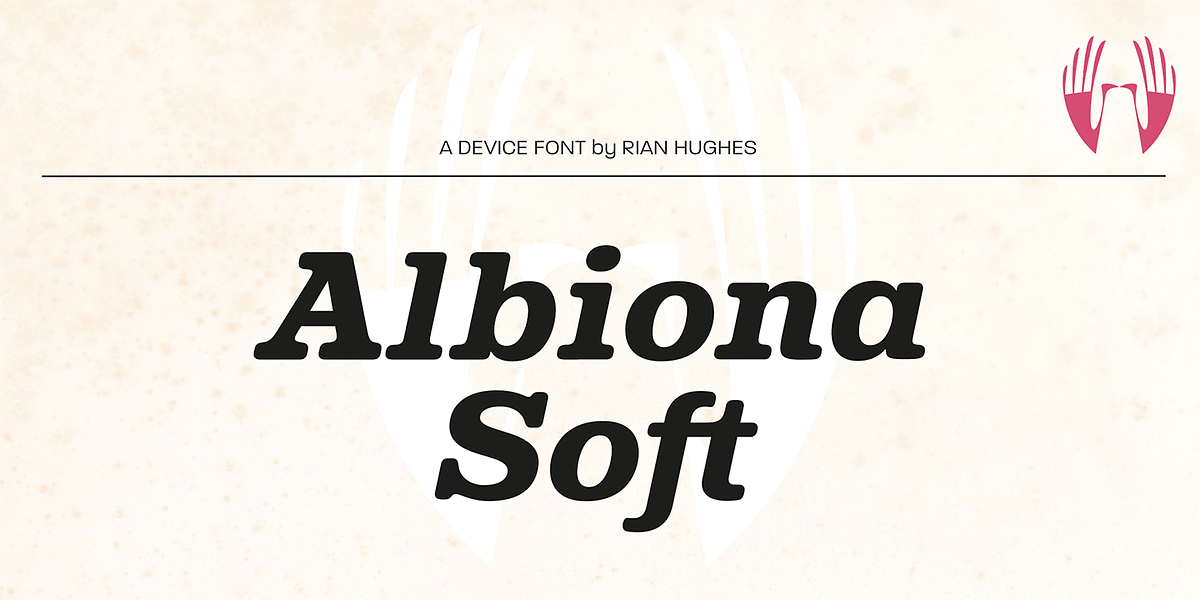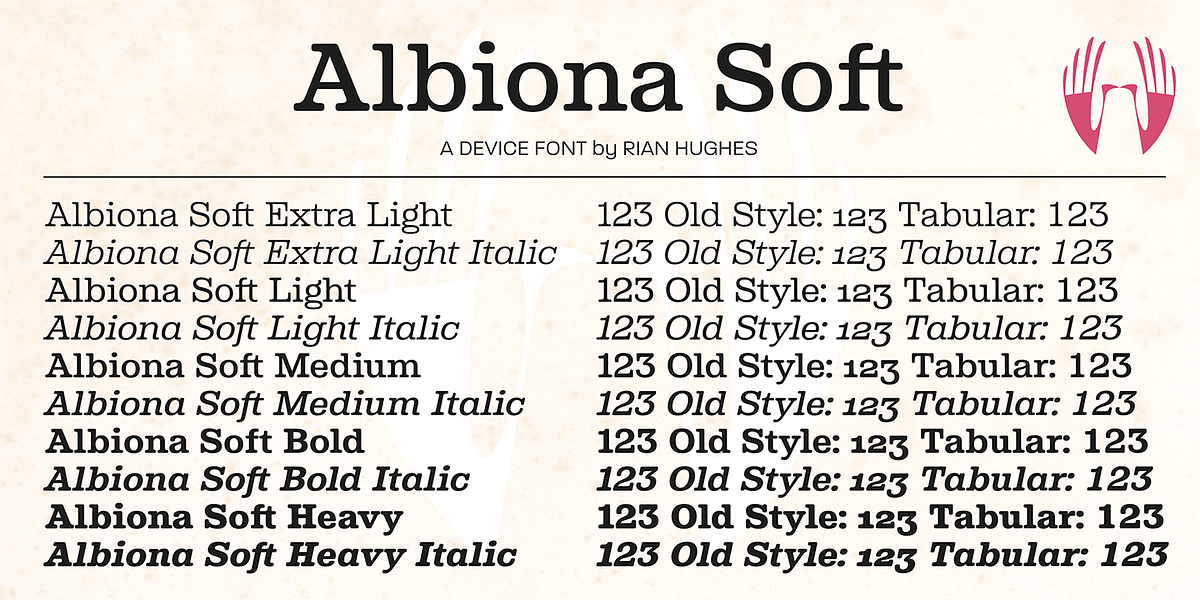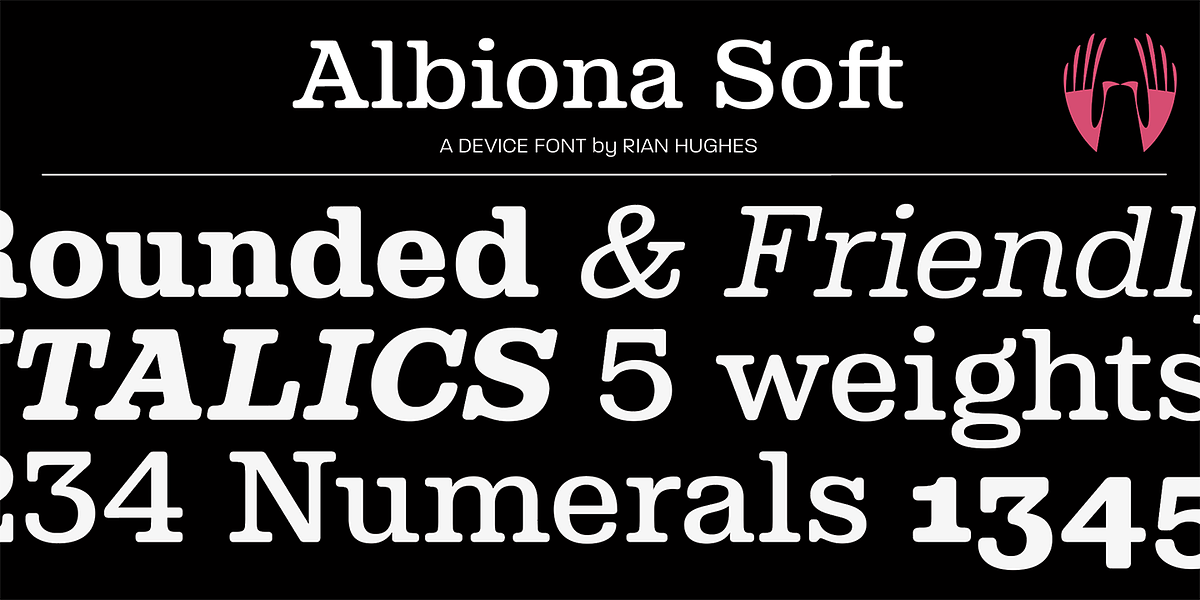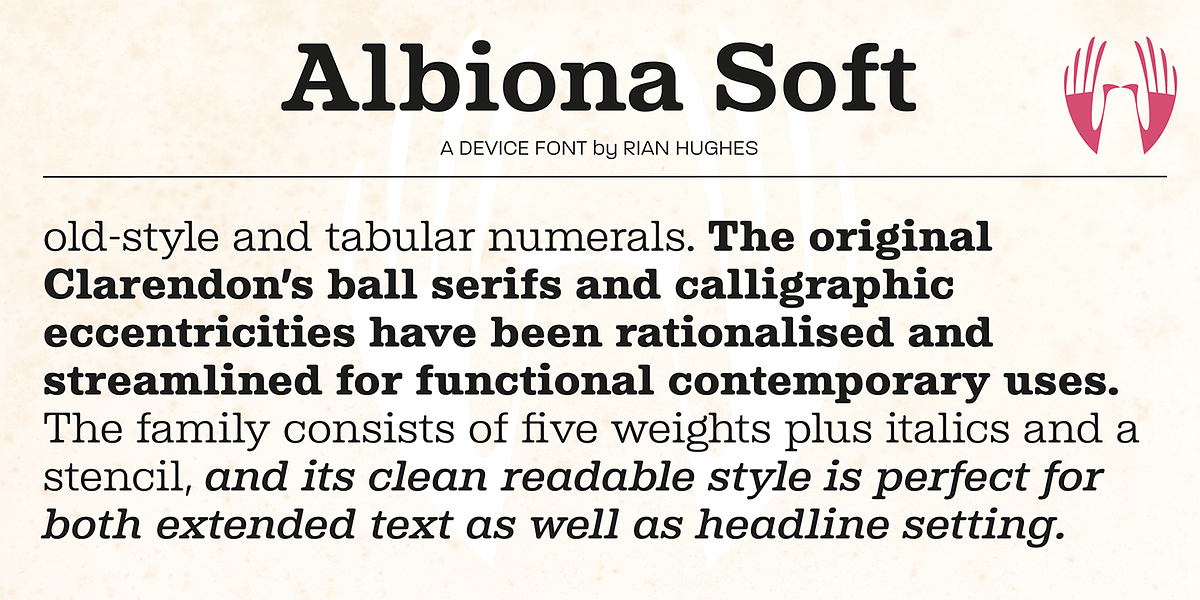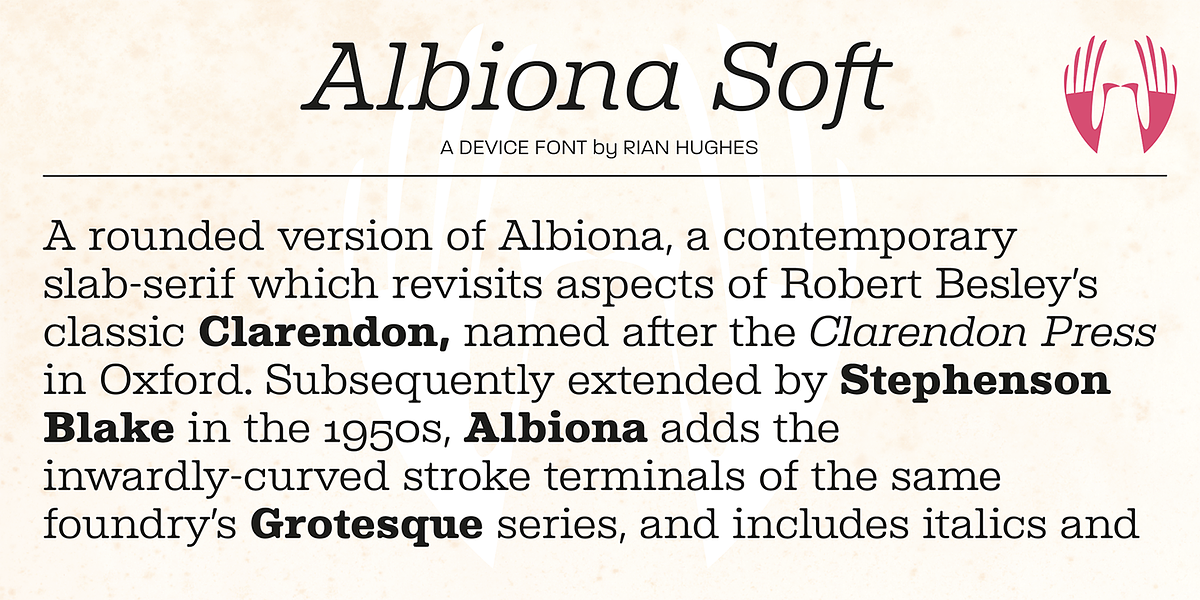
Albiona Soft
Albiona is a modernized interpretation of the classic Clarendon typeface. It features rounded stroke terminals for a softer appearance while retaining the ball serifs and geometric structure characteristic of slab serif fonts. The family includes five weights with italics, catering to both text setting and display purposes.